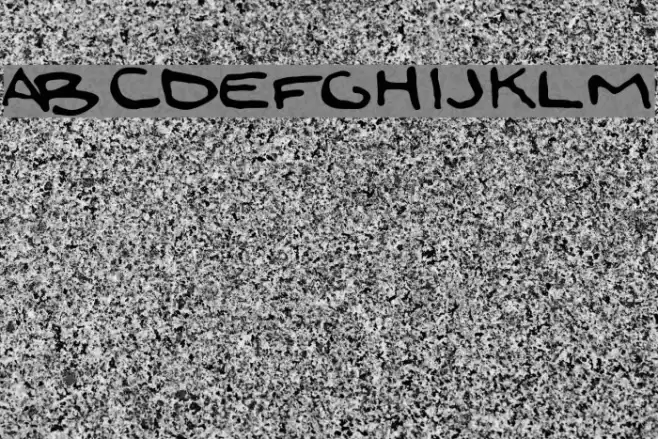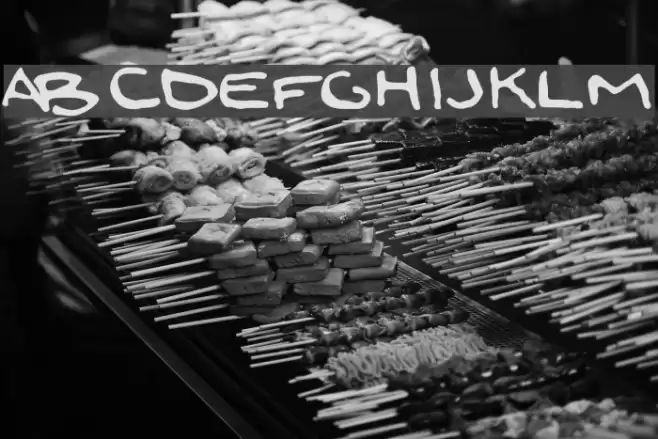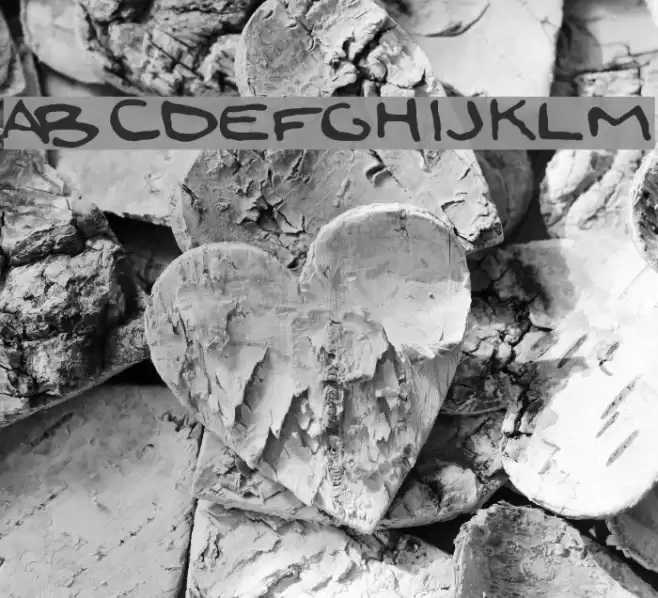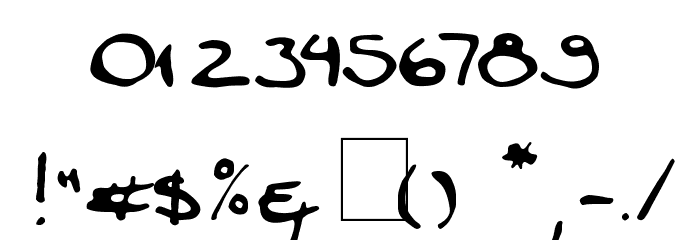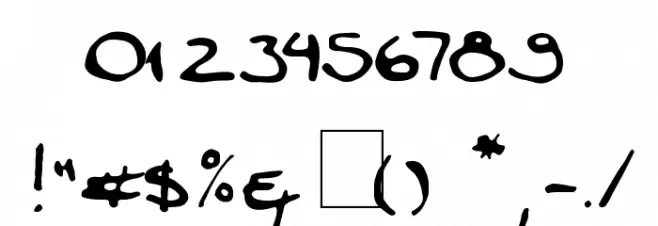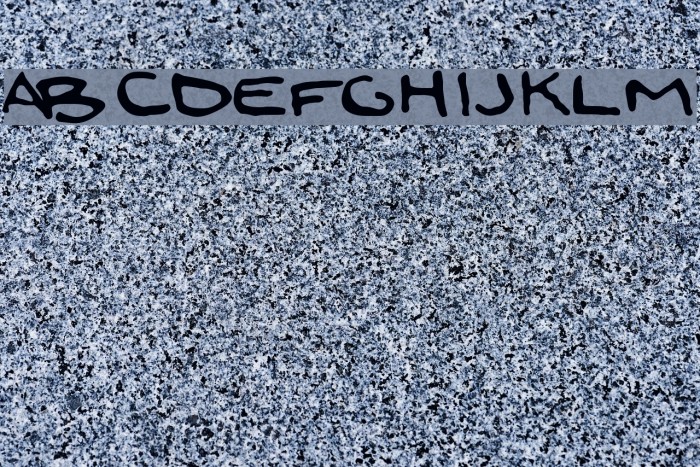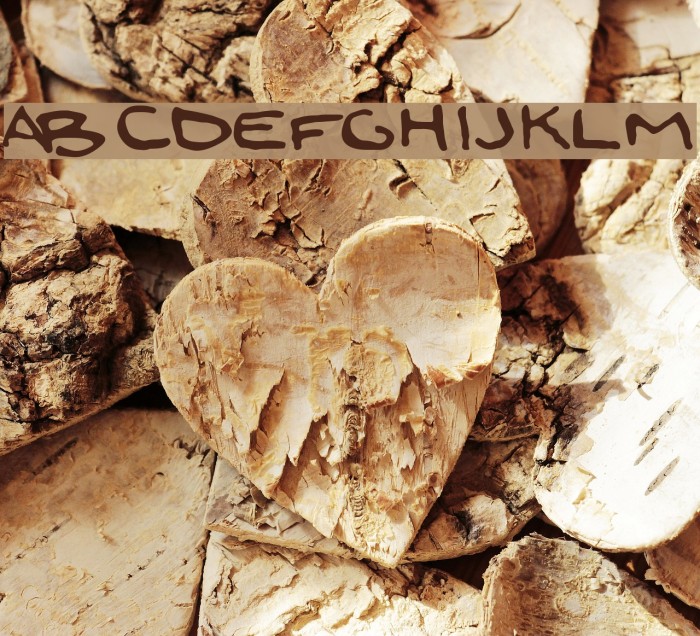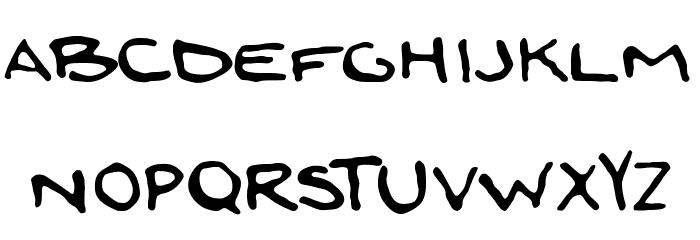
zoi_mao Font
zoi_mao Description
This font features a playful and artistic handwritten style, characterized by its irregular and organic strokes. The letters have a casual, almost whimsical appearance, with varying thickness that adds a dynamic feel to the text. The uppercase and lowercase letters maintain a consistent style, with rounded edges and a slightly slanted orientation, giving the impression of a personal touch. The numerals and special characters follow the same aesthetic, ensuring a cohesive look across all elements. This font is ideal for projects that require a personal, informal, or creative touch, such as invitations, greeting cards, or artistic branding.
A playful, handwritten font with irregular strokes and a whimsical appearance from Comic fonts.
- Proposed Projects: Ideal for invitations, greeting cards, artistic branding, and creative projects.
- Use Case: Logos, Headlines, Creative projects